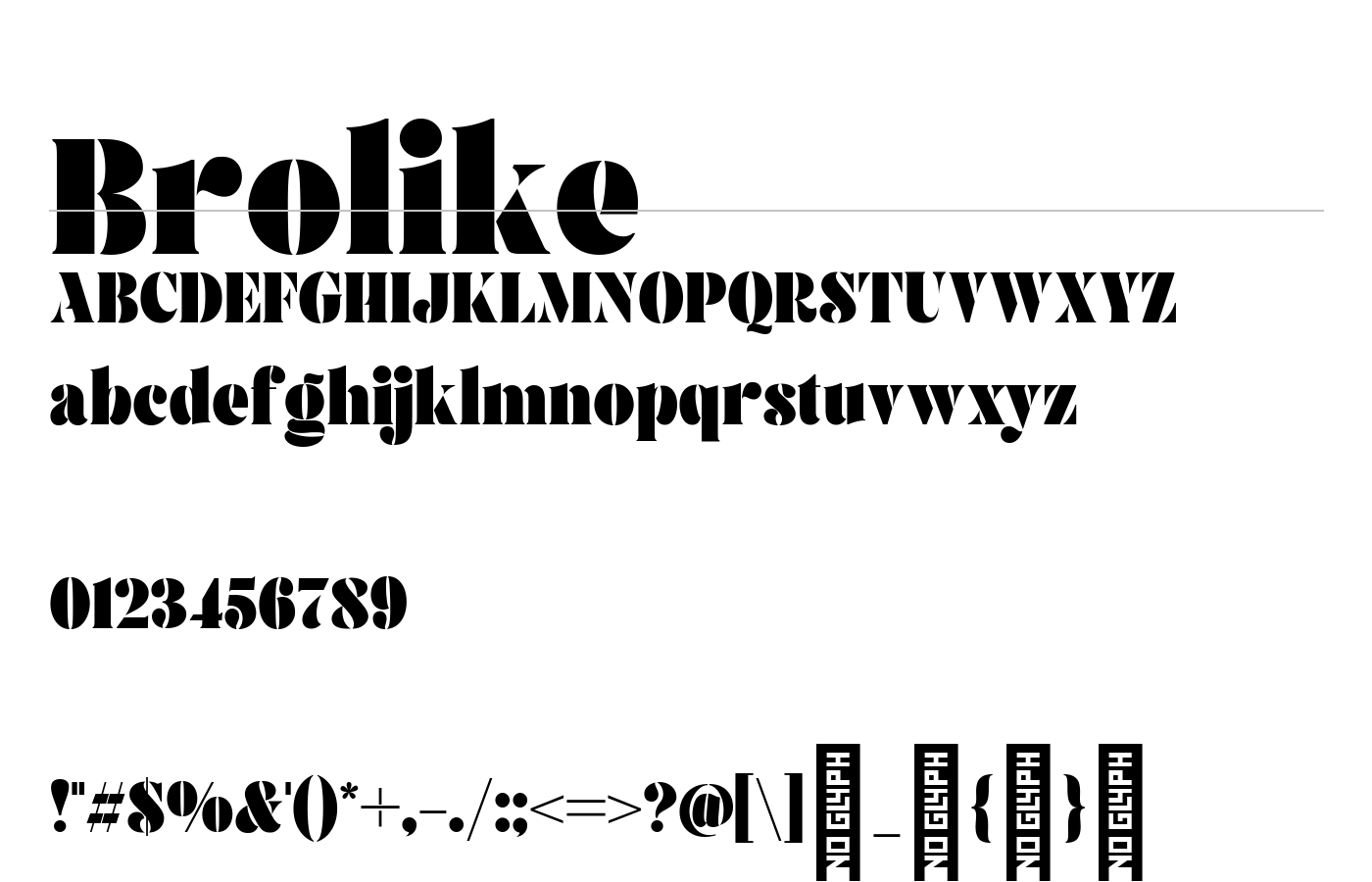
Brolike is a bold serif font with a strong, high-contrast style characterized by thick, blocky serifs and dramatic stroke variations. Its uppercase and lowercase letters feature unique, slightly condensed shapes with distinctive cutouts and sharp edges, giving it a vintage yet powerful presence. This font works wonderfully for attention-grabbing headlines, logos, and editorial designs where a blend of elegance and bold impact is desired.
| Font family | Brolike Font |
| Designer | Kana Widana |